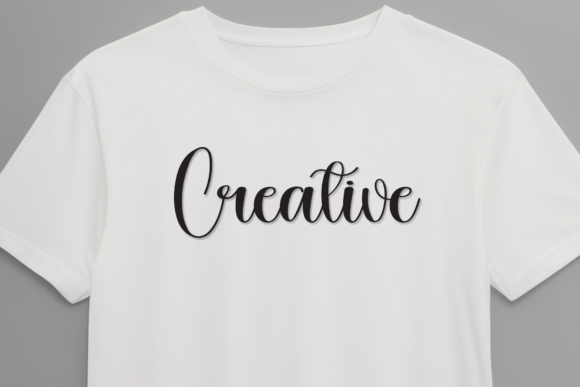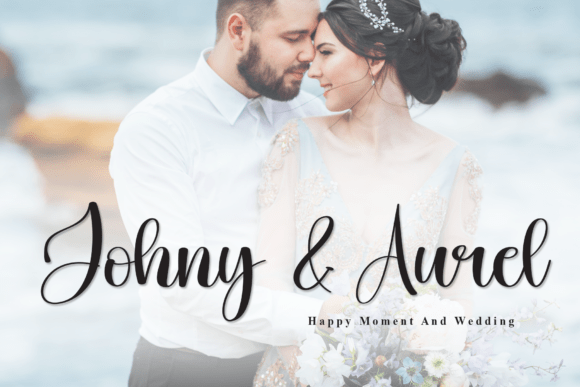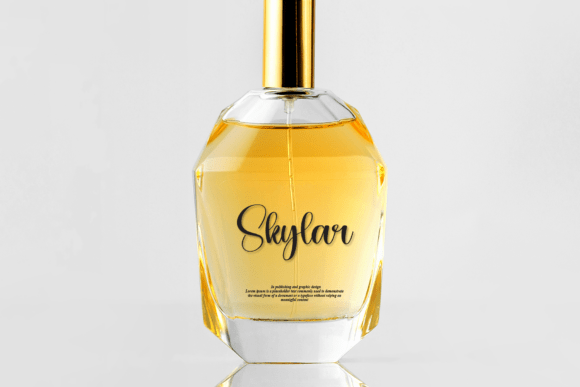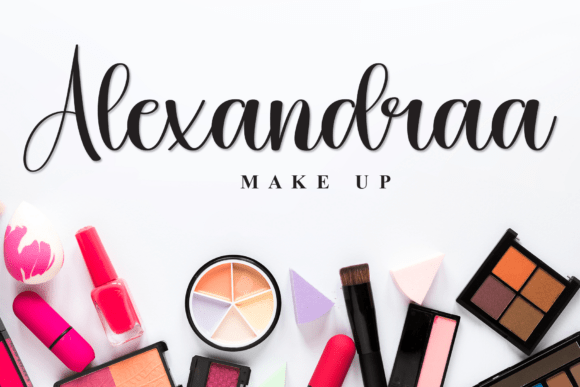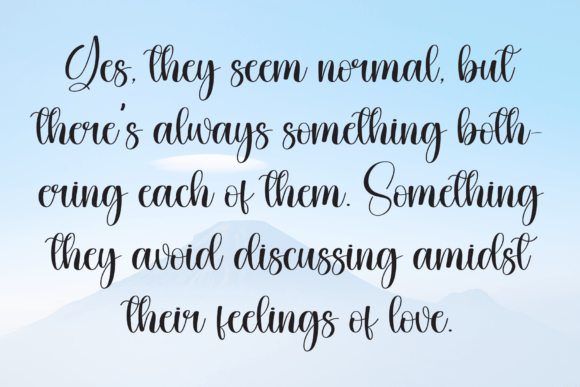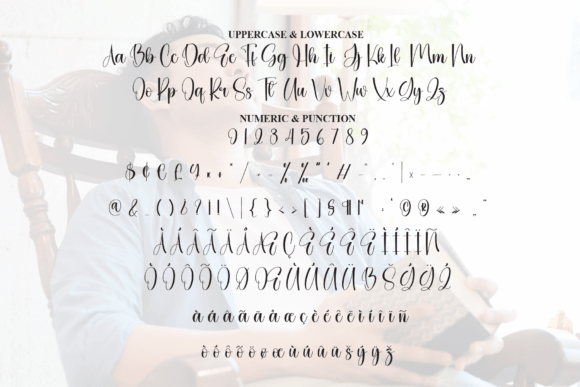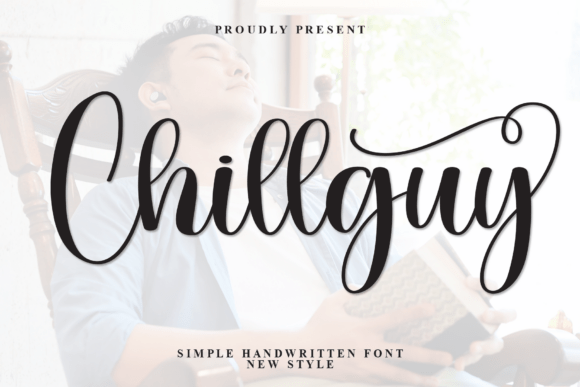
Introducing Chillguy Font: Elevate Your Designs with a Touch of Elegance
Are you tired of using the same old fonts for your designs? Look no further! Chillguy Font is here to revolutionize the way you create. Our latest style letters are perfect for a wide range of applications, from wall displays to wedding invitations, social media post logos, advertisements, product packaging, and more. With Chillguy Font, you can add a touch of elegance and sophistication to your projects, making them stand out from the crowd.
What Makes Chillguy Font Special?
Chillguy Font is perfect for a wide range of design applications, including:
• Wall displays: Add a touch of elegance to your wall art with our stylish font.
• Wedding invitations: Make your wedding invitations truly special with our beautiful handwriting font.
• Social media post logos: Elevate your social media presence with our unique and stylish font.
• Advertisements: Grab attention with our eye-catching font, perfect for advertisements.
• Product packaging: Add a touch of sophistication to your product packaging with our elegant font.
• Product designs: Create stunning product designs with our versatile font.
• Labels: Make your labels stand out with our stylish and easy-to-read font.
• Photography: Add a touch of elegance to your photography with our beautiful font, perfect for watermarks.
• Invitations: Create stunning invitations for any occasion with our beautiful handwriting font.
• Stationery: Elevate your stationery with our elegant and sophisticated font.
Why Choose Chillguy Font?
At Chillguy Font, we understand the importance of having a unique and stylish font for your designs. Our font is designed to provide you with the perfect blend of elegance and creativity. With Chillguy Font, you can:
• Stand out from the crowd: Our font is designed to make your designs stand out from the crowd.
• Save time: With our easy-to-use font, you can save time and focus on other aspects of your design.
• Enhance your brand: Our font is perfect for creating a consistent brand image across all your design materials.